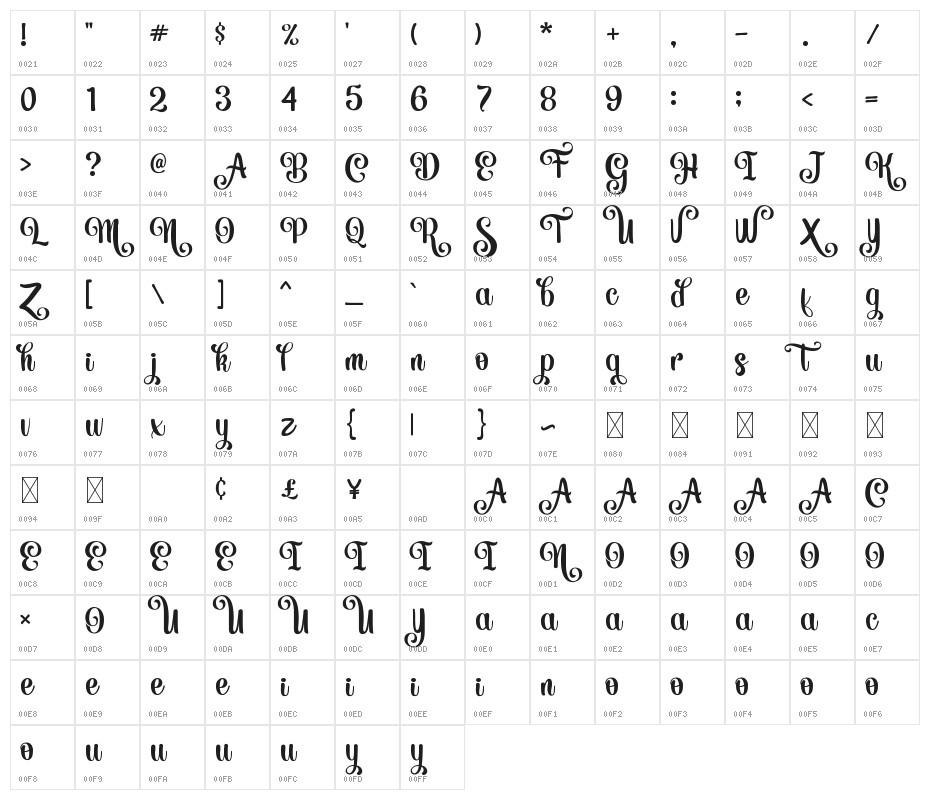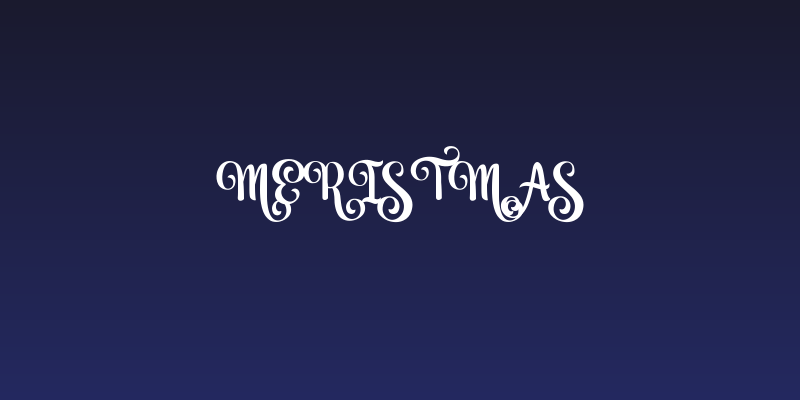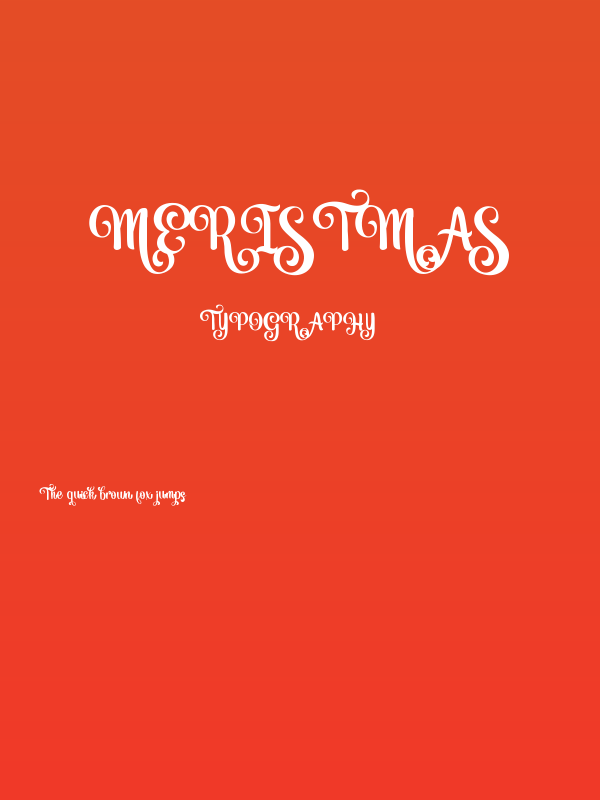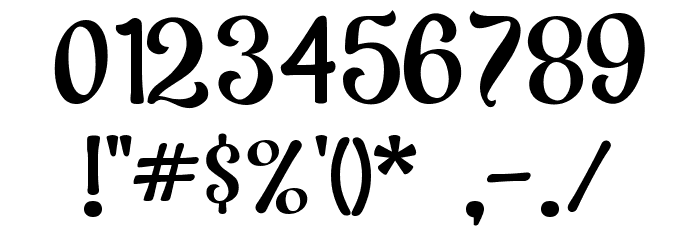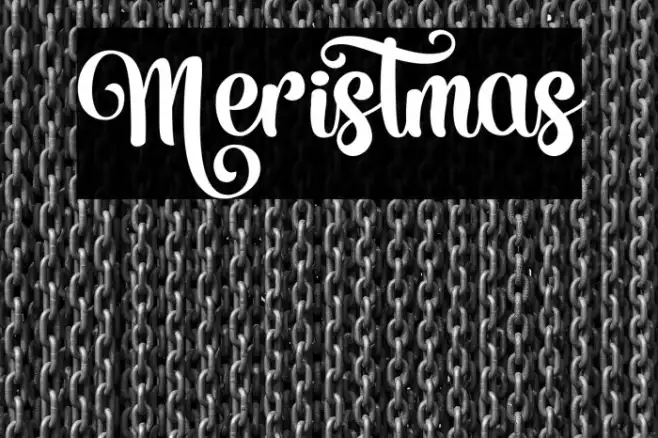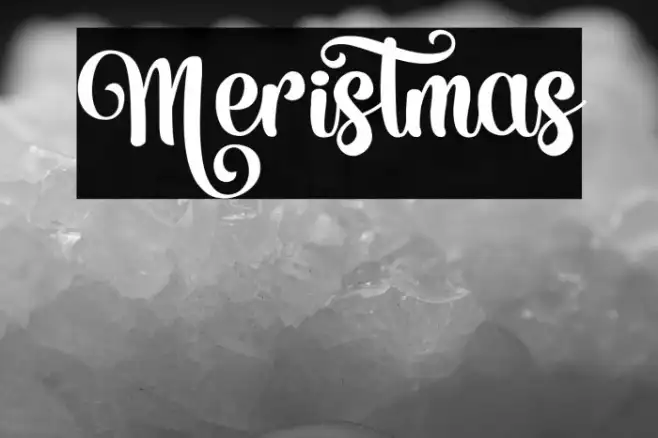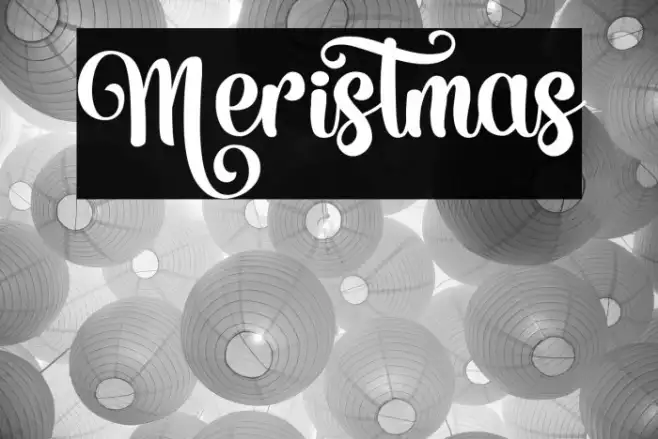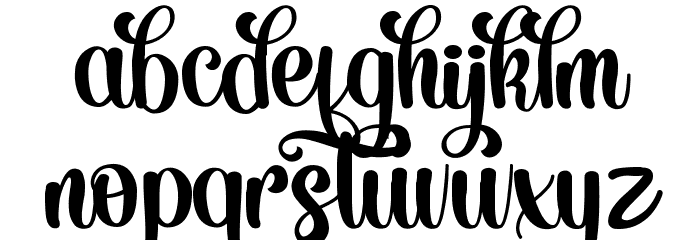
Meristmas Font
Meristmas Description
This font is a decorative script style with elaborate, swirling embellishments on each letter, giving it a festive and playful appearance. The uppercase letters are particularly ornate, featuring loops and curls that extend from the main strokes. The lowercase letters maintain a consistent style, with smooth, flowing lines that connect seamlessly. The numerals are bold and rounded, complementing the overall whimsical aesthetic. Special characters are designed with similar flair, ensuring a cohesive look across all glyphs. This font's unique style makes it ideal for creative and celebratory designs.
| Proposed Projects | Ideal for holiday cards, invitations, festive banners, and playful branding projects. |